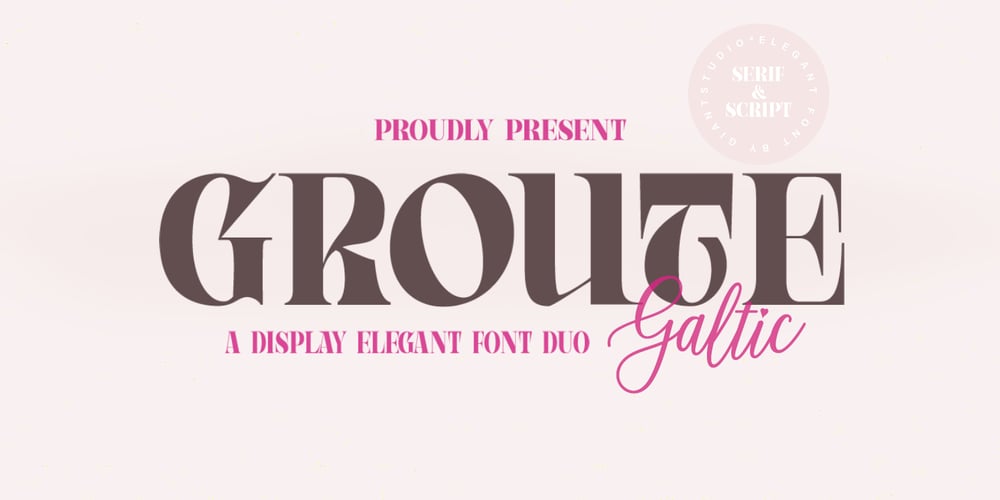
Groute Script
Groute Script font
Groute Script Font Family was designed by Yusliana M Isa and published by Gian Studio. Groute Script contains 2 styles and family package options. Groute Font Elegant serif specially designed uppercase letters in creative moods and perfect shapes, inspired by the bold, natural look of serifs that are so beautiful for today’s fashion. bold, balanced and varied, born for luxury and beauty. including uppercase letters, numbers, and various punctuation marksGroute also comes in a script version so it is very suitable for invitation designs, logos & branding, photography, advertising, watermarks, social media posts, product packaging, product designs, labels, wedding designs, stationery, special events or whatever is needed to create a theme .Groute is built with OpenType features and includes start and end language styles, alternative characters for most lowercase letters, numbers, punctuation, alternatives, endings, and also supports other languages.Hope you enjoy our fonts and if you have any questions,feel free to message & I’ll be happy to help 🙂